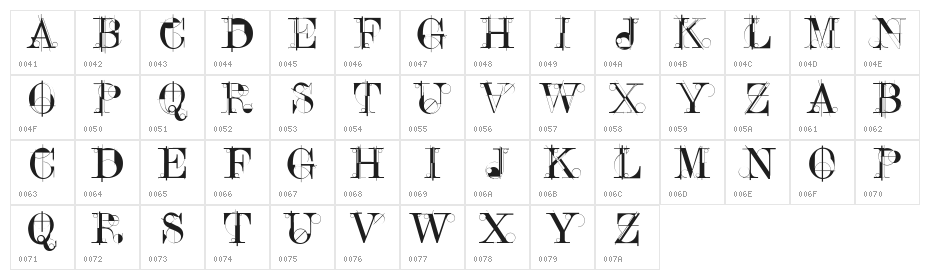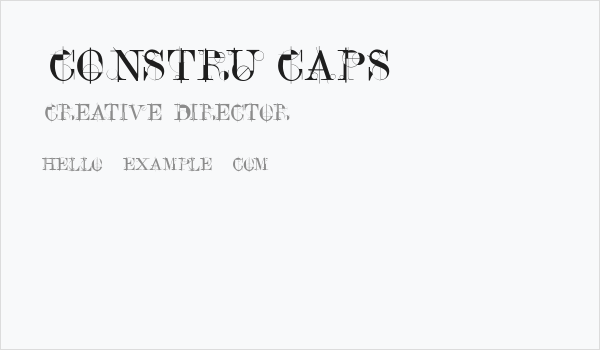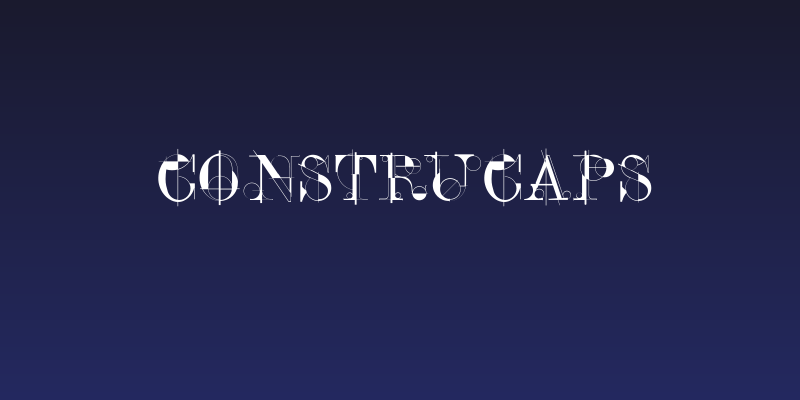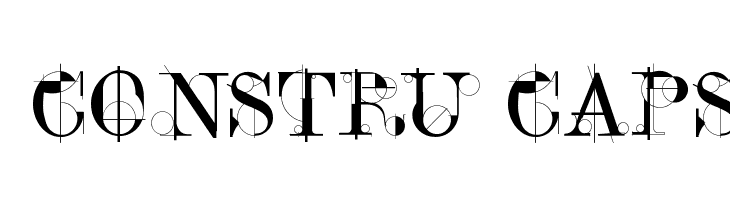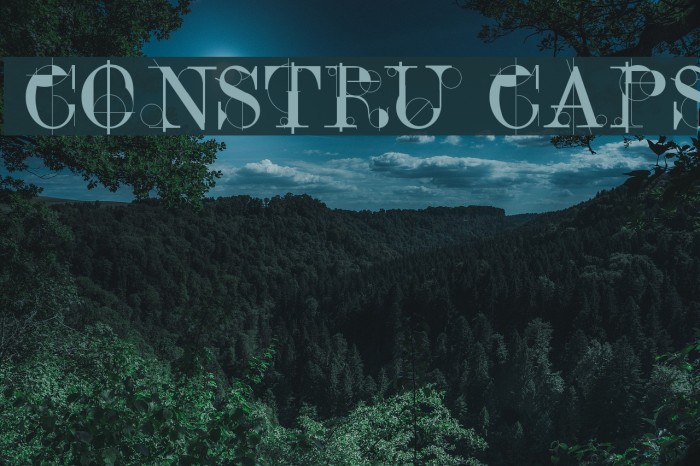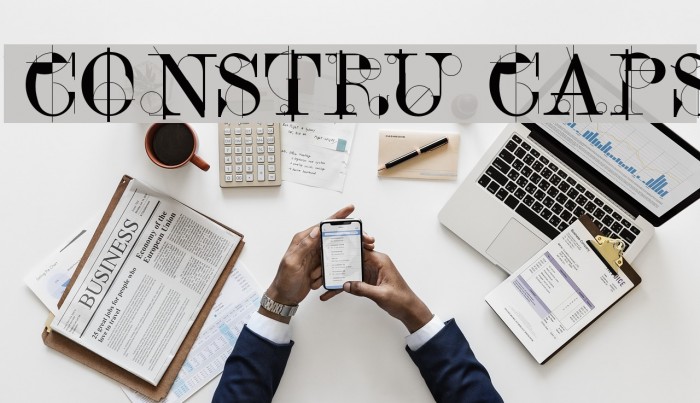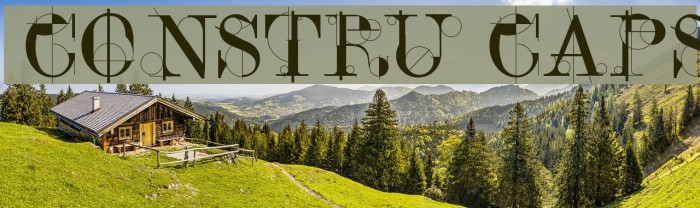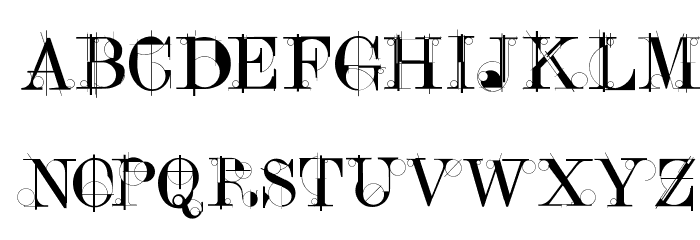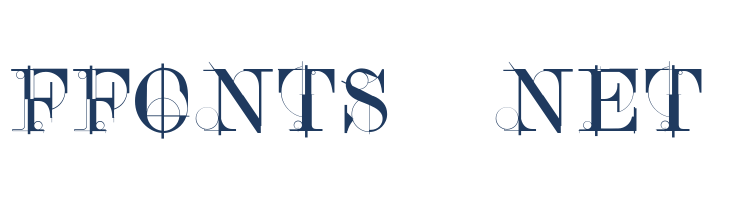
ConstruCaps Font
ConstruCaps Description
This font features a unique and intricate design, characterized by its decorative elements and geometric shapes. Each letter is adorned with circular and linear embellishments, giving it a mechanical and architectural feel. The uppercase letters are bold and structured, with consistent line thickness and precise angles. The font's style is reminiscent of technical drawings or blueprints, making it stand out with its artistic and detailed appearance. The overall design is both modern and vintage, combining classic serif elements with contemporary decorative flair.
| Overall Style | Modern, Vintage, Decorative |
| Proposed Projects | Ideal for architectural branding, technical illustrations, posters, and artistic projects that require a unique and structured typeface. |